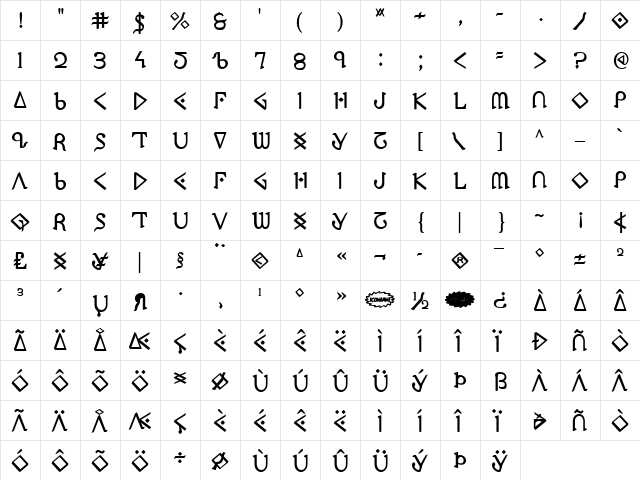
Presley Press Bold Bold
Design Context for Presley Press Bold Typeface
Presley Press Bold is a composed and adaptable typeface that performs quietly and consistently across a wide range of design contexts. The heavy weight commands attention and anchors typographic hierarchies.